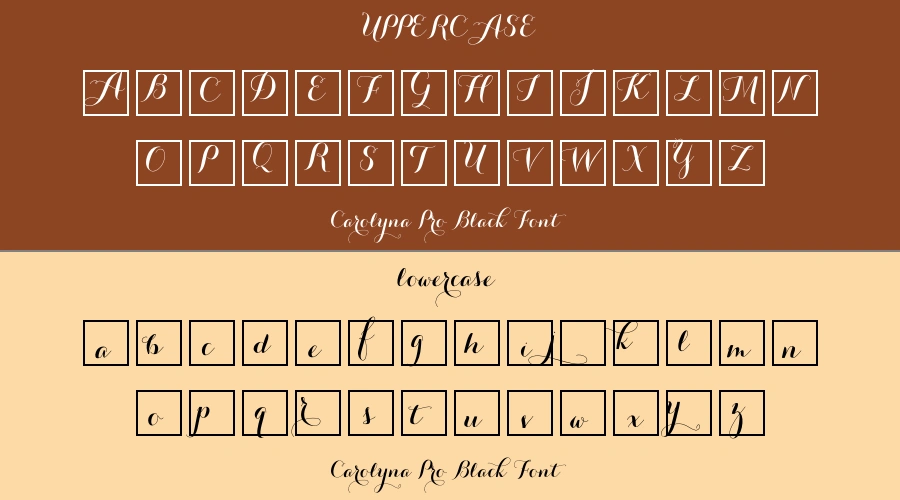
About Carolyna Pro Black Font
Carolyna Pro Black Font embodies typographic excellence through its masterful combination of balanced tension and adaptability. Created for newspaper text, this typeface delivers exceptional refinement and technical precision across all applications. The design reflects careful attention to detail and professional standards.
Advanced capabilities include distinctive organic forms and versatile multiple weights, giving designers creative control. When used in exhibition materials, Carolyna Pro Black Font exhibits remarkable file optimization. The harmonious balance between descender depth and subtle details sets this typeface apart.